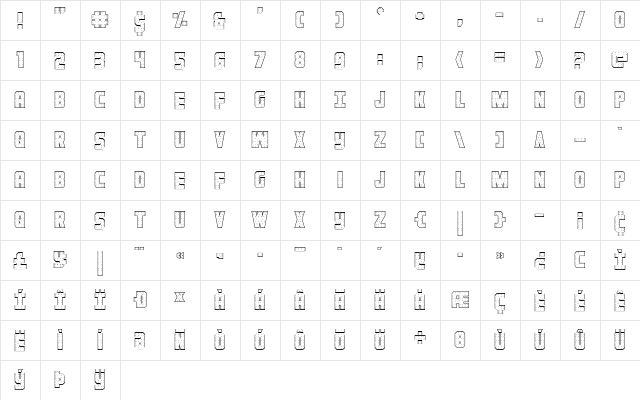
Iron Forge Outline Regular
Design Context for Iron Forge Outline Typeface
Iron Forge Outline is built around its visual character rather than neutral utility — its distinctive forms are designed to make an impression at display sizes.
Font Pairing: Pair with a clean neutral sans-serif for body copy to let Iron Forge Outline's character lead without overwhelming the composition.
Pro Tip: Treat Iron Forge Outline as the centrepiece of your typographic hierarchy. One strong heading set in a decorative face can carry an entire layout.